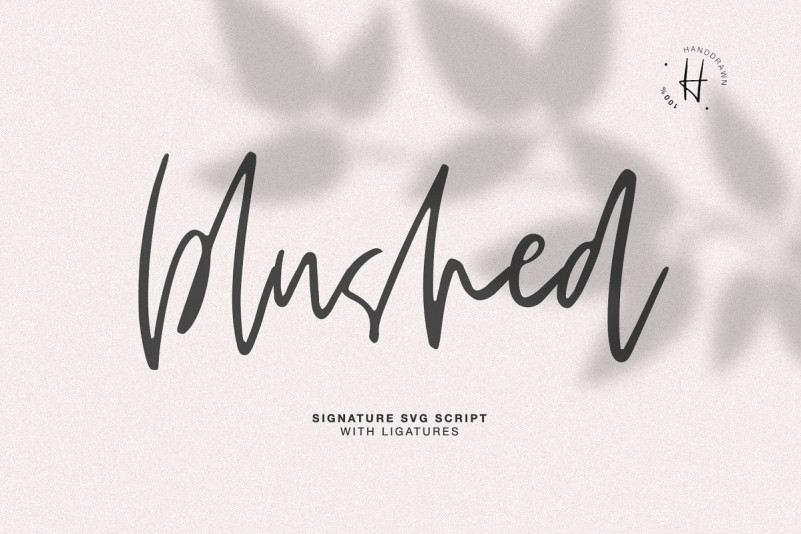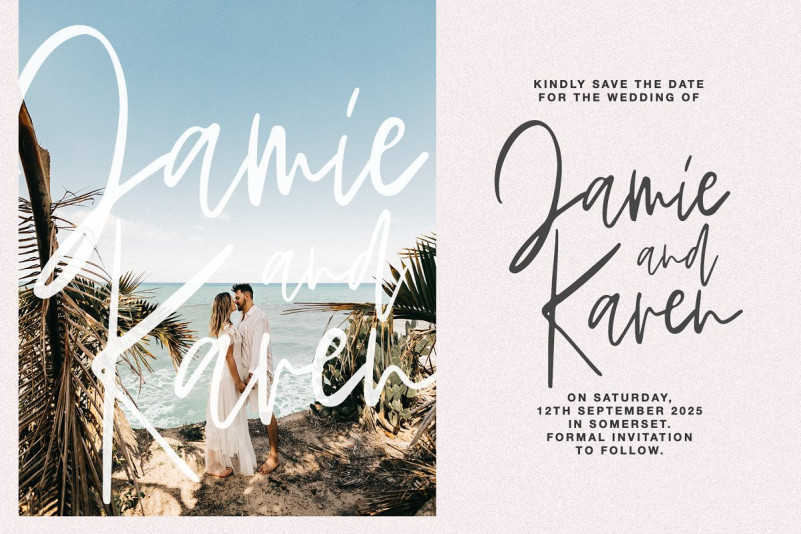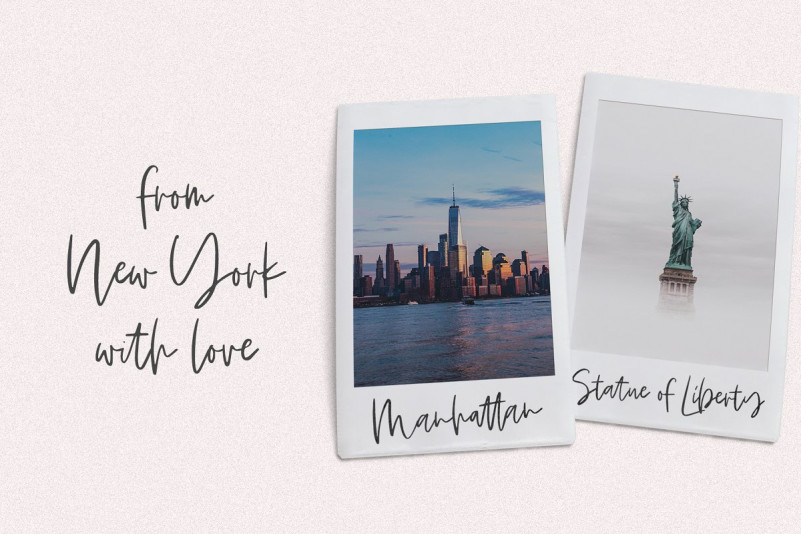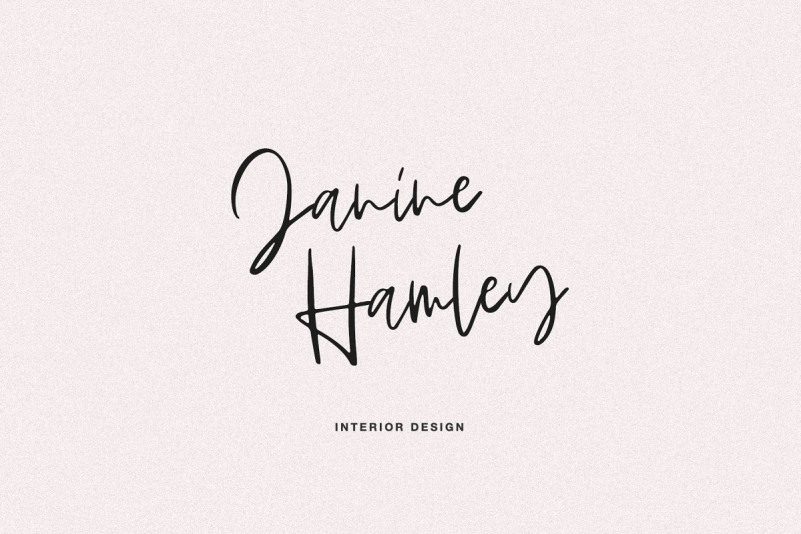
BLUSHED SCRIPT Font
Hello, friends. I keep experimenting with handwritten fonts, shapes and lines. I want the font to set the tone, the atmosphere, and look like an inscription made in a hurry, but it is well read.
Try my new font, I think it combines all these qualities. Simple and clear, looks at ease. It is perfect for signatures or design, where you do not need a strict style 🙂